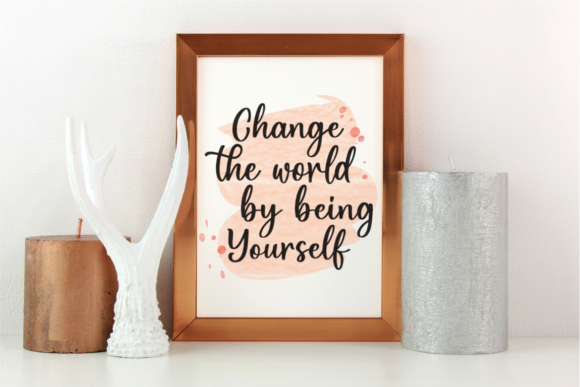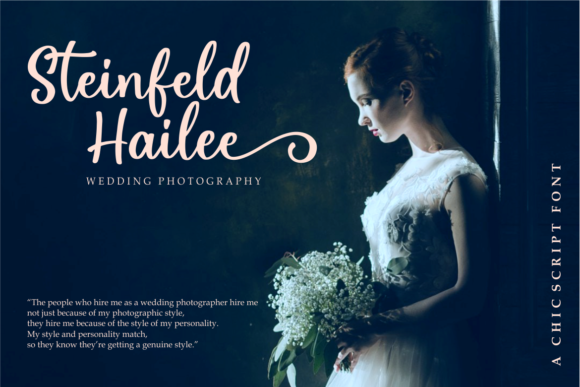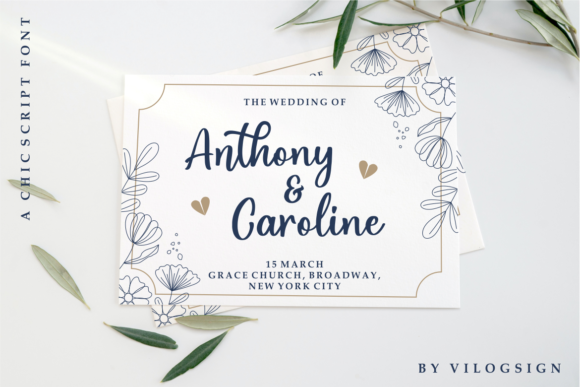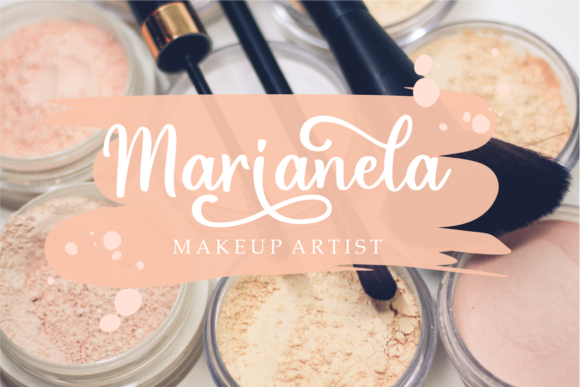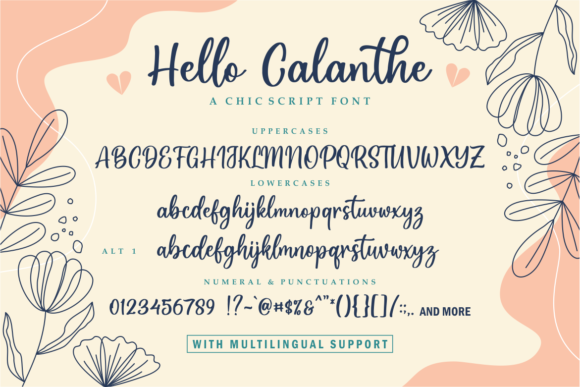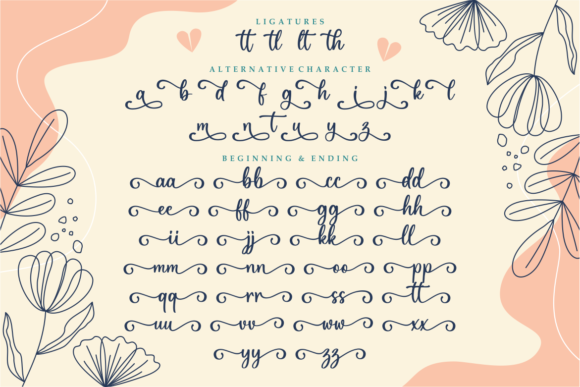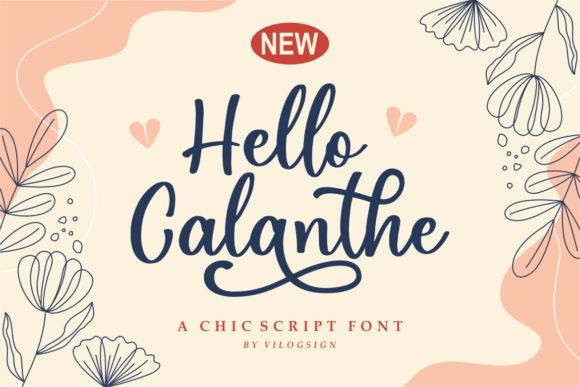
Hello Calanthe Font: Elevate Your Design with Elegance
In the world of typography, fonts play a crucial role in making or breaking the visual appeal of a design project. For designers and crafters looking to add a touch of luxury and sophistication to their work, Hello Calanthe font is an excellent choice. This chic light handwritten font boasts a unique feel and stunning impact, making it perfect for a wide range of design applications.
What is Hello Calanthe Font?
Hello Calanthe is a beautifully crafted light handwritten font that exudes elegance and refinement. Its unique feel sets it apart from other fonts, making it an excellent addition to any design project. Whether you’re working on a logo, branding materials, packaging, or digital content, Hello Calanthe font is sure to make a lasting impression.
Key Features of Hello Calanthe Font
- Unique Handwritten Style: Hello Calanthe font features a distinctive handwritten style that adds a personal touch to any design project.
- Light and Elegant: The font’s light weight and elegant feel make it perfect for designs that require a touch of sophistication.
- High Versatility: Hello Calanthe font can be used in a variety of design applications, from logos and branding materials to packaging and digital content.
- Luxury Spark: This font adds a luxury spark to any design project, making it ideal for designers and crafters looking to create high-end visuals.
Why Choose Hello Calanthe Font?
With so many fonts available, why choose Hello Calanthe? Here are a few compelling reasons:
- Stand Out from the Crowd: Hello Calanthe font’s unique feel and elegant style ensure that your design project stands out from the crowd.
- Easy to Read: Despite its elegant feel, Hello Calanthe font remains highly legible, making it perfect for designs that require a clear and concise message.
- Flexible and Adaptable: This font can be used in various design applications, from print materials to digital content, and can be easily adapted to suit different styles and themes.
Design Applications for Hello Calanthe Font
Hello Calanthe font is an incredibly versatile font that can be used in a wide range of design applications, including:
- Logo Design: Create a stunning logo that showcases your brand’s personality and style with Hello Calanthe font.
- Branding Materials: Use Hello Calanthe font to create cohesive branding materials, such as business cards, letterheads, and brochures.
- Packaging Design: Add a touch of luxury to your packaging design with Hello Calanthe font, perfect for high-end products and premium brands.
- Digital Content: Use Hello Calanthe font to create engaging digital content, such as social media graphics, blog posts, and email newsletters.
Tips for Using Hello Calanthe Font
To get the most out of Hello Calanthe font, here are a few tips to keep in mind:
- Pair with Bold Fonts: Pair Hello Calanthe font with bold fonts to create a striking contrast and add visual interest to your design.
- Experiment with Colors: Try out different colors and textures to add depth and dimension to your design.
- Keep it Simple: Don’t overcomplicate your design – Hello Calanthe font’s elegance and simplicity are its greatest strengths.
Hello Calanthe font is an exceptional choice for designers and crafters looking to add a touch of luxury and sophistication to their design projects. With its unique feel, elegant style, and high versatility, this font is sure to make a lasting impact. Whether you’re working on a logo, branding materials, packaging, or digital content, Hello Calanthe font is the perfect choice for creating stunning visuals that stand out from the crowd.